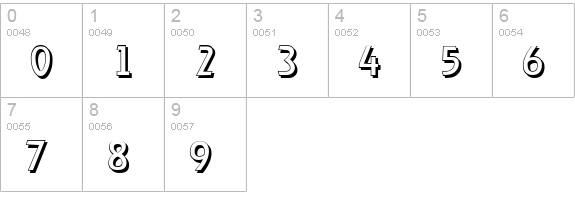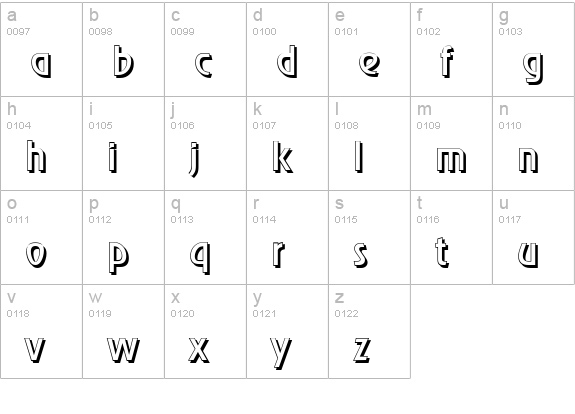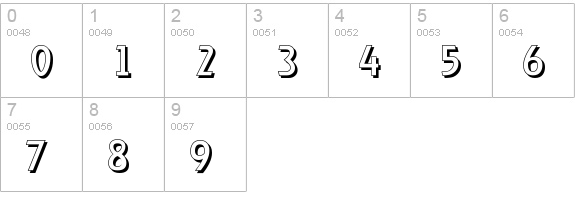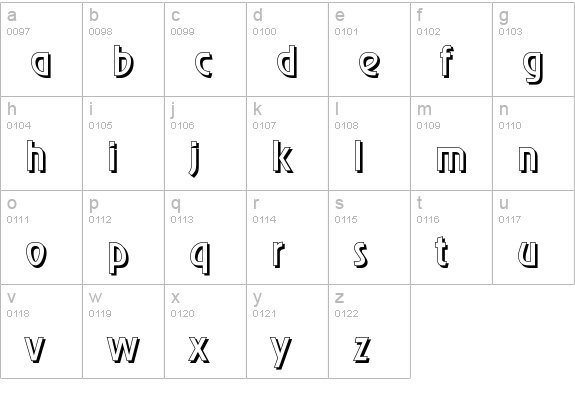
OnStageShadow-Regular Font Details
OnStageShadow-Regular is the standard, neutral variant in the OnStageShadow typeface family \xE2\x80\x94 well suited to general body text, paragraphs, and standard typographic work.
OnStageShadow-Regular is a stylish and eye-catching font that brings a touch of drama and sophistication to any design project. This font features a striking shadow effect that adds depth and visual interest to your text. Whether you're creating posters, invitations, or branding materials, OnStageShadow-Regular is sure to make a statement. The best part is that OnStageShadow-Regular is available for free download at FontsMarket.com. This means you can easily add this unique font to your collection without any cost. Don't miss out on the opportunity to enhance your designs with this versatile and elegant typeface. Download OnStageShadow-Regular today and take your projects to the next level.